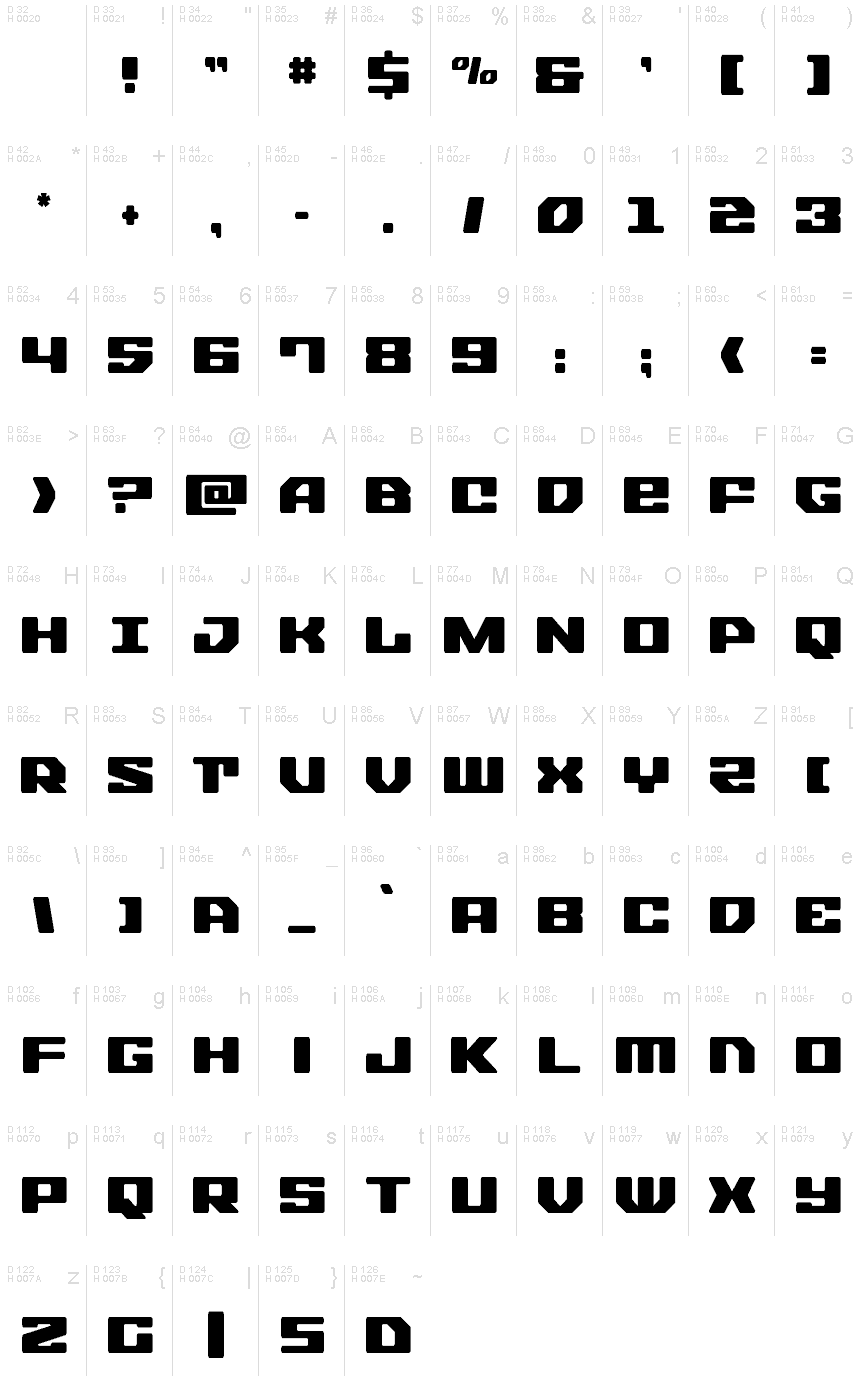
Fawkes Condensed
Fawkes Condensed font is a techno display typeface from Iconian Fonts. This expanded bold typeface features a rugged and industrial design that gives it a strong presence as soon as it enters the stage. It proposes a modern aesthetic with geometric elements for captivating designs.
Free by nature, Fawkes Condensed can be added to branding designs related to industries or food businesses. Create logotypes and letterheads that communicate authenticity, or use this unique display font for posters, magazine covers, flyers, or social media images. Titles and packaging designs can also vary depending on your project’s genre within print projects of all sorts.